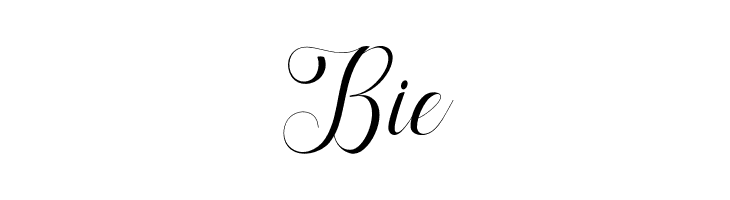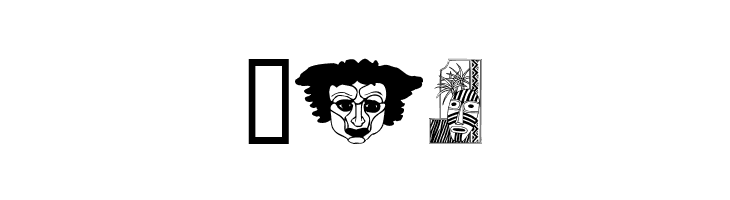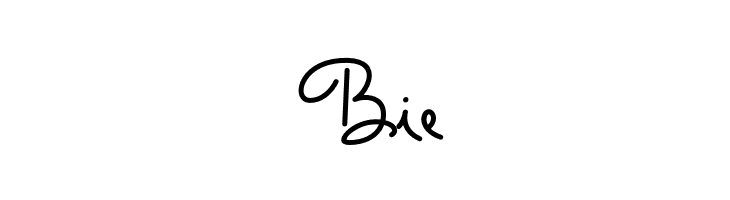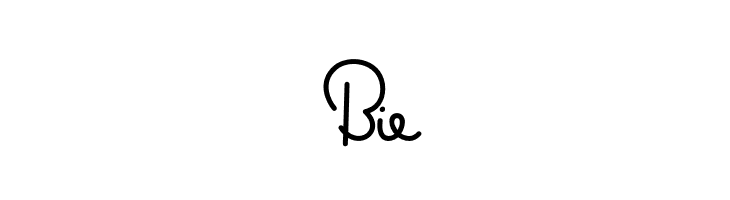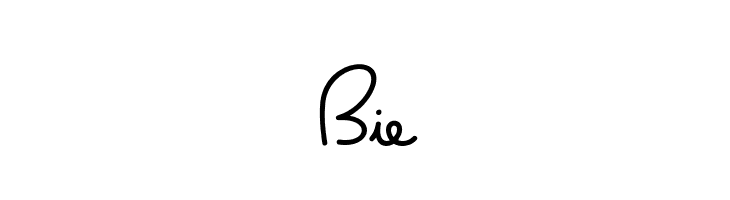
• marketing-artdesing
An elegant and flowing script font with ornate uppercase and smooth lowercase letters.
• Marones
A bold, vintage-inspired font with strong, angular serifs and uniform height.
• Marones
A bold, slab serif font with a strong, modern presence.
• MartavanEck_Font
A playful, casual handwritten font with irregular strokes and a natural flow.
• MasanaScript-1Propia
A playful and whimsical script font with flowing, interconnected letters.
• MasanaScript-2Grata
A playful, handwritten script font with flowing, interconnected strokes.
• MasanaScript-3Maxima
A playful and elegant script font with a flowing, cursive design.
• MasanaScript-4Silueta
An elegant, flowing script font with graceful curves and loops.
• MasanaScript-5Extras
A playful, handwritten script with smooth, flowing lines and consistent stroke thickness.
• Maskes
A decorative font where each character is an ornate mask illustration.